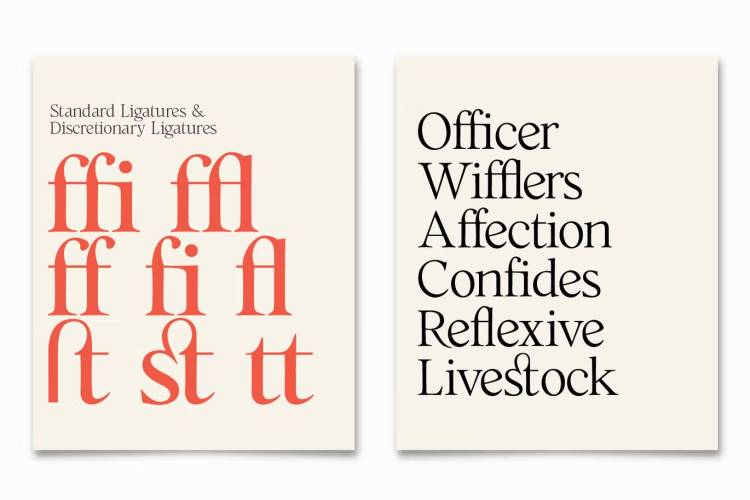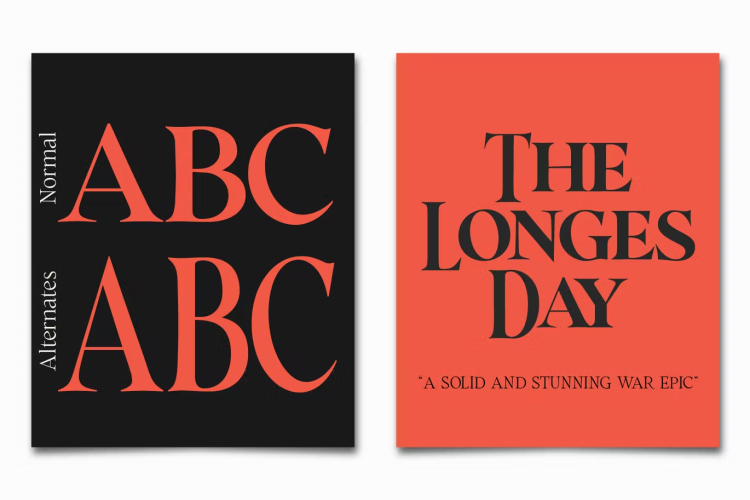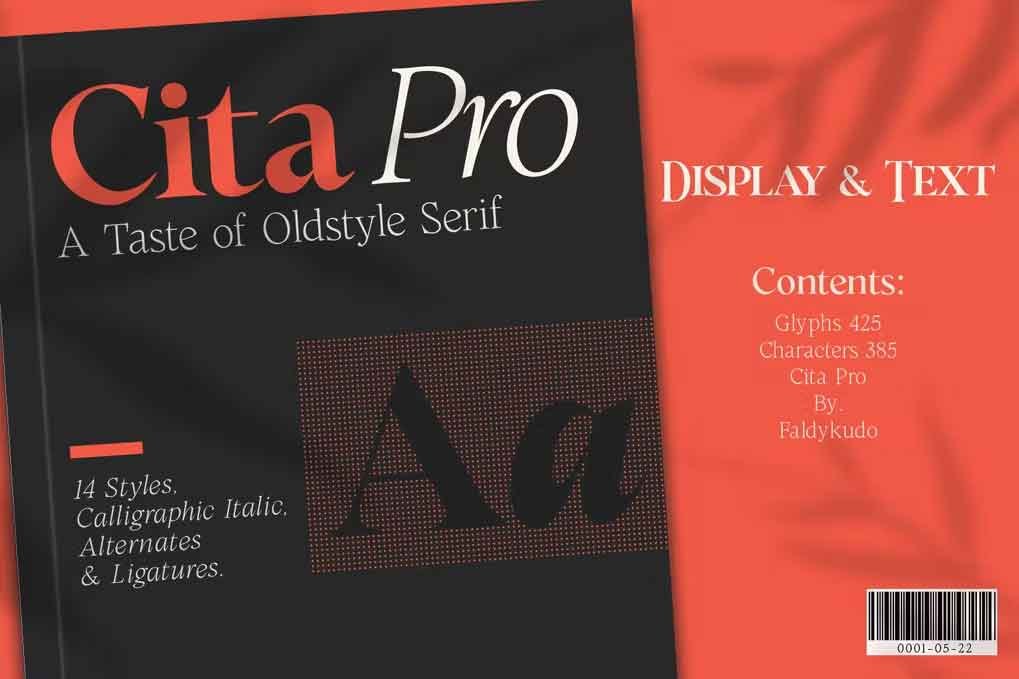
Cita Pro Font
About Cita Pro
Hi there please say hello to “Cita Pro” the latest collection from xdCreative, Cita Pro is a serif typeface with a taste of old style, its very beautiful with a timeless aesthetic and has a very wide range for various design situations. Cita Pro is perfect for both display and body text because it has a very good readability.
Cita Pro has 14 style and 7 weights, – from Thin to Bold and Matching calligraphic italic. Cita Pro also has special alternate characters in complete uppercase from A-Z . it is to give a different look for your display design.
Where Cita Pro Font works best
Cita Pro Font gives long-form text a classic, trustworthy rhythm — ideal for magazine spreads, annual reports and book interiors.
Pair Cita Pro Font with generous letter-spacing for wordmarks in fashion, hospitality, wine and jewellery branding.
Use Cita Pro Font for slide titles in Keynote, PowerPoint or Google Slides to add authority without looking dated.
What is Cita Pro Font good for?